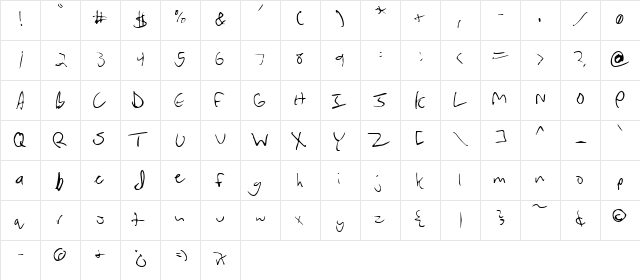
WolfieBoy Regular
| Foundry | Wolf |
| Designer | Wolf(Bill Bussone) |
Design Context for WolfieBoy Typeface
WolfieBoy is a composed and adaptable typeface that performs quietly and consistently across a wide range of design contexts.